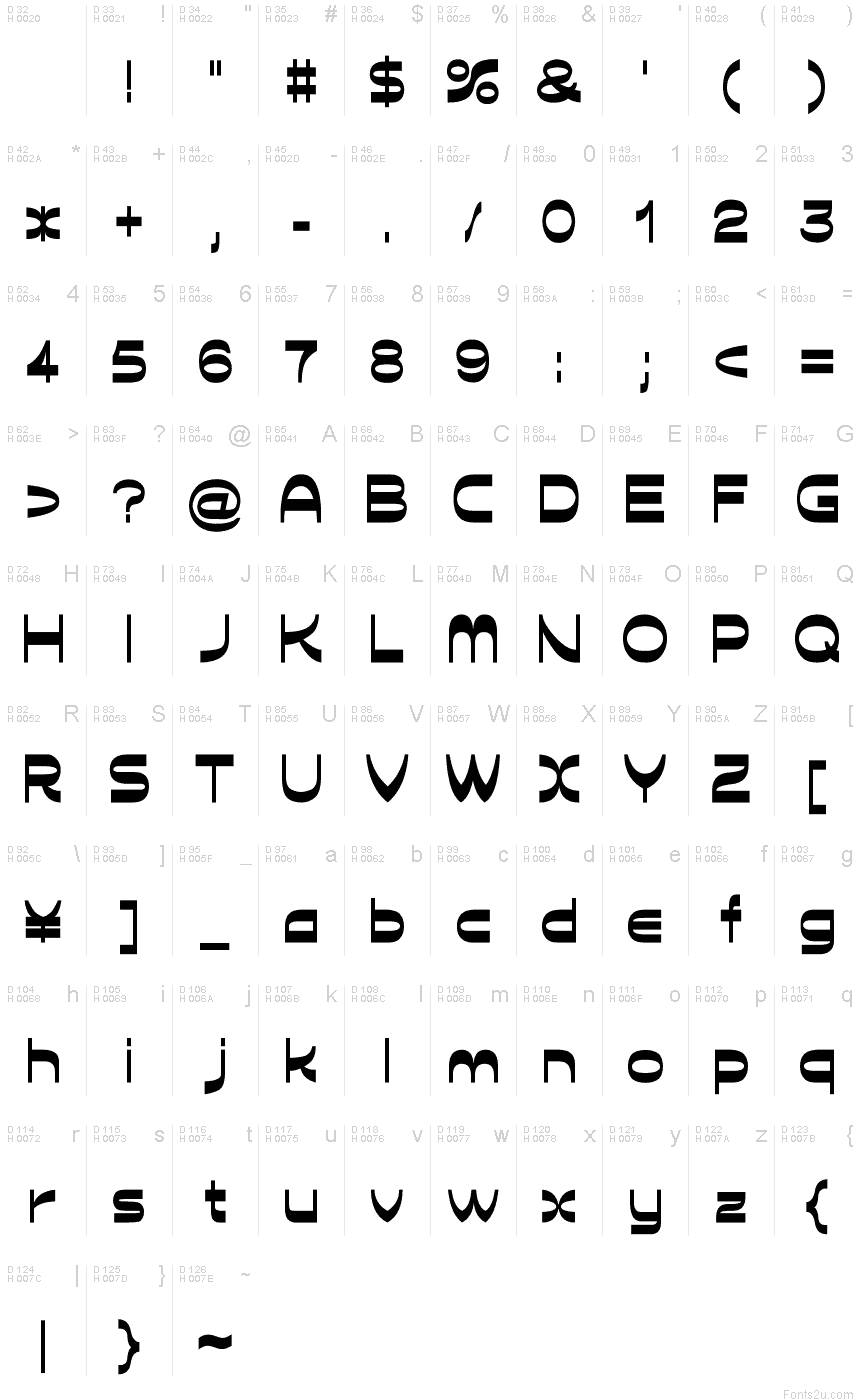
D3 Calligraphism
D3 Calligraphism by Yoshiyasu Ito of DigitalDreamDesign is a free futuristic display font built from broad geometric strokes. Its letters combine sweeping outer curves with flat cuts and narrow horizontal openings, giving the forms a distinctly machine-made profile. Some shapes are nearly abstract, but the repeated rounded blocks keep the design coherent.
Science fiction and digital technology are the clearest themes for event posters, game interfaces, and electronic music packaging, where the segmented forms can suggest machinery and screens. Across all three, the lettering can resemble a polished piece of futuristic machinery.